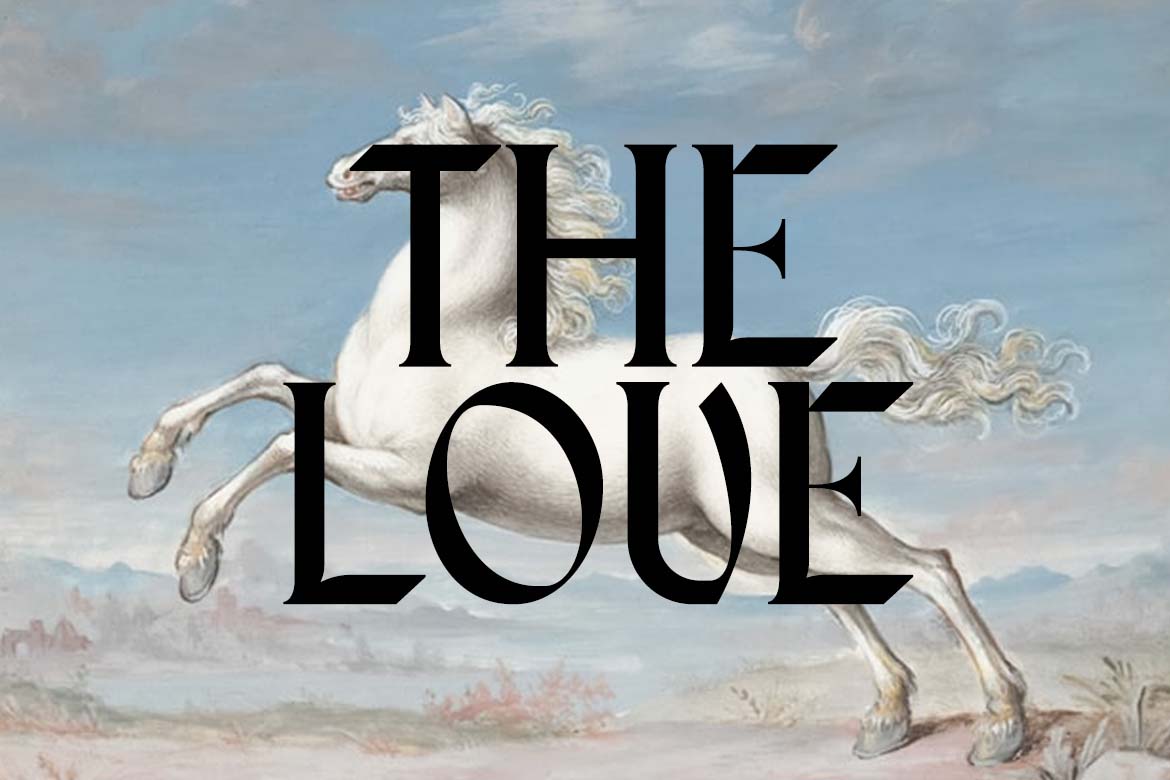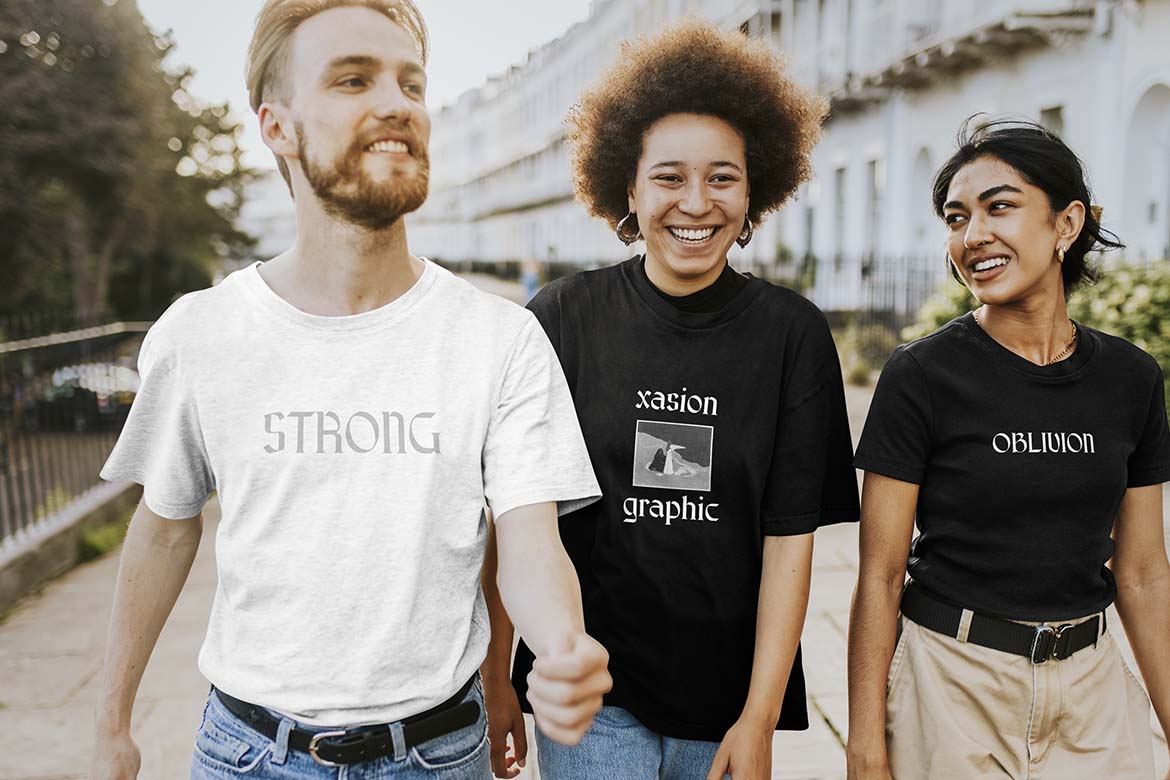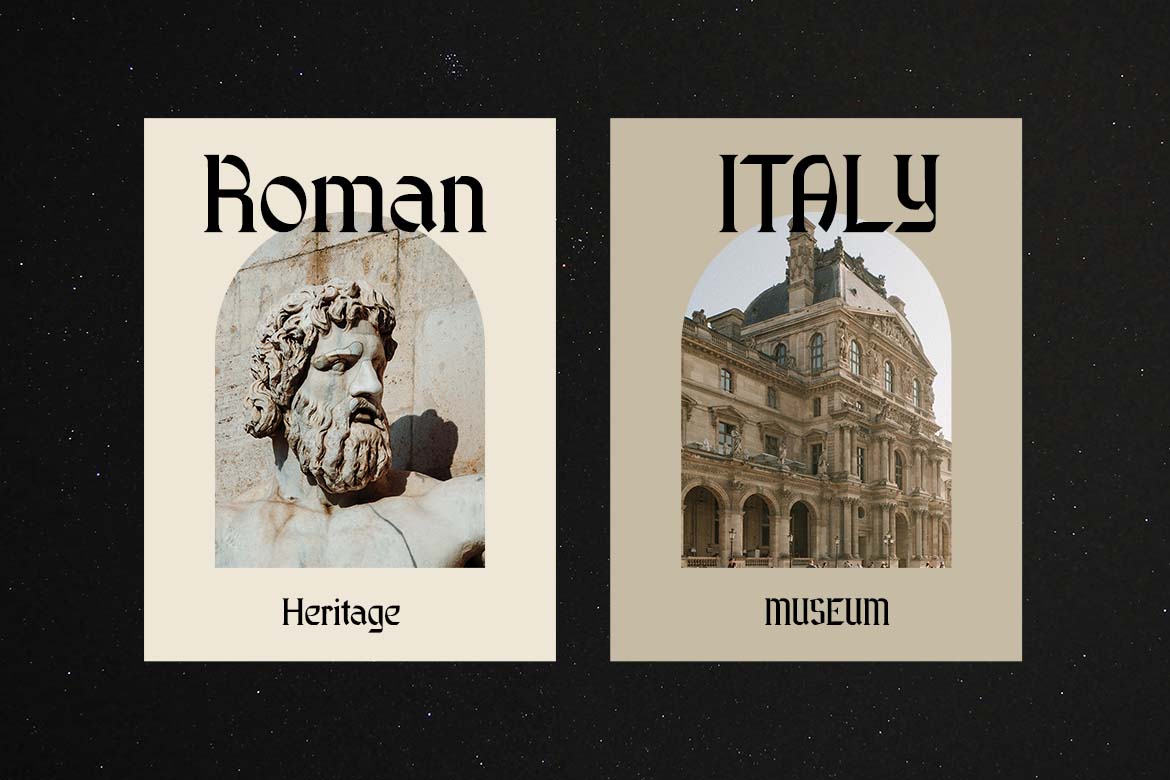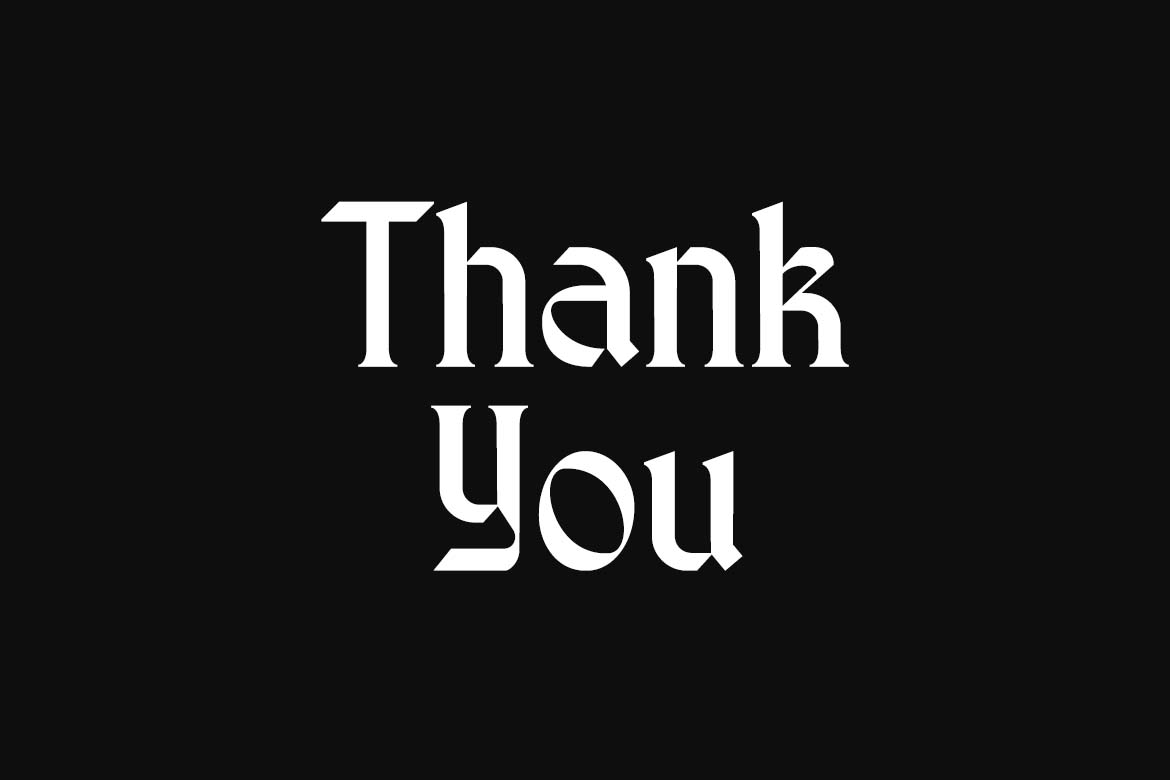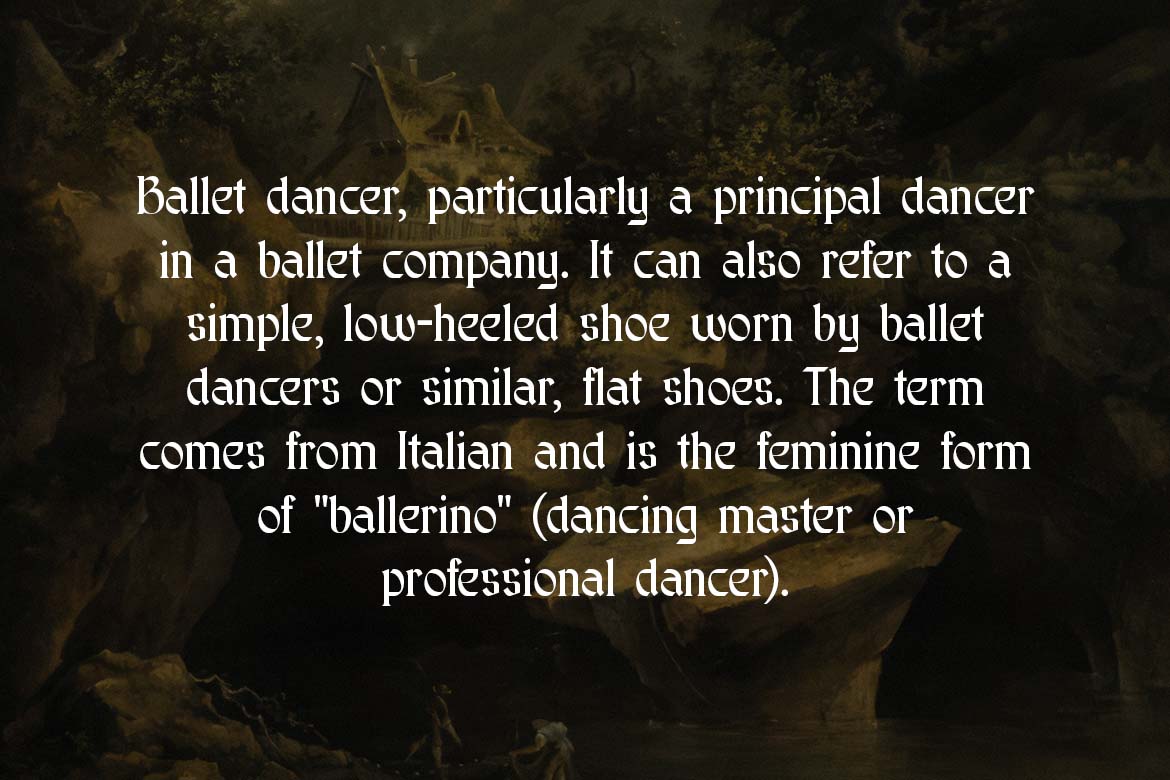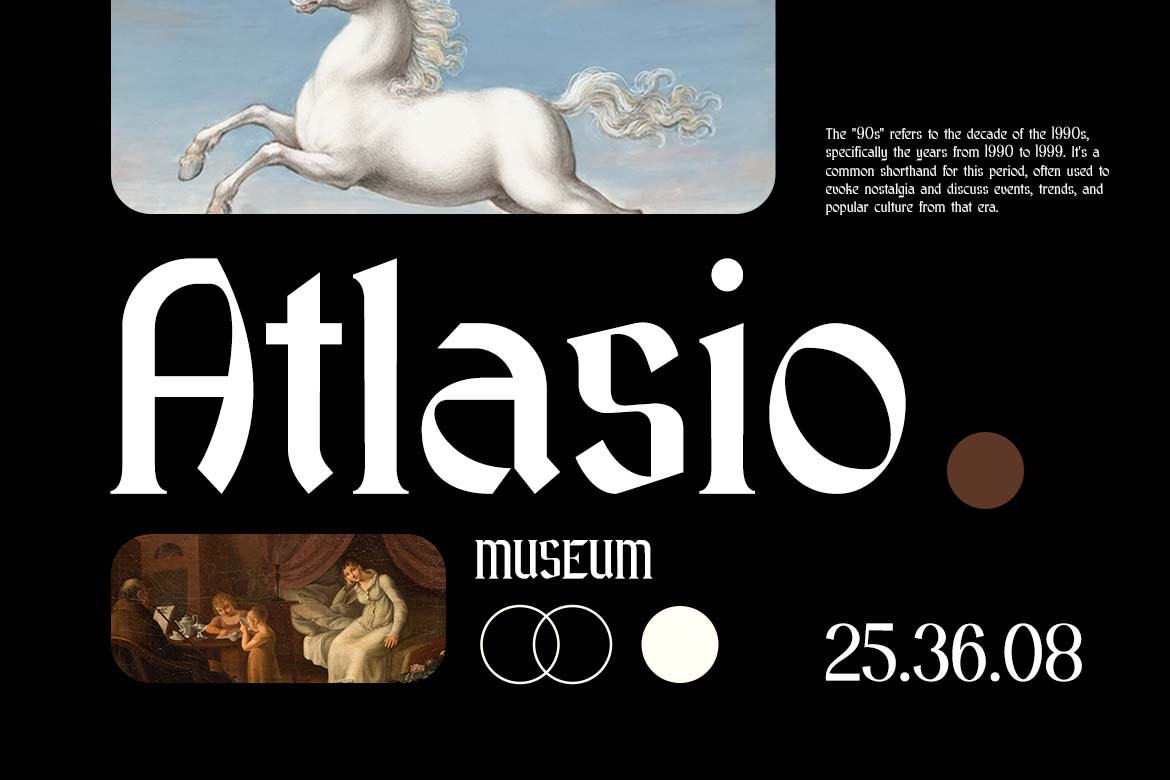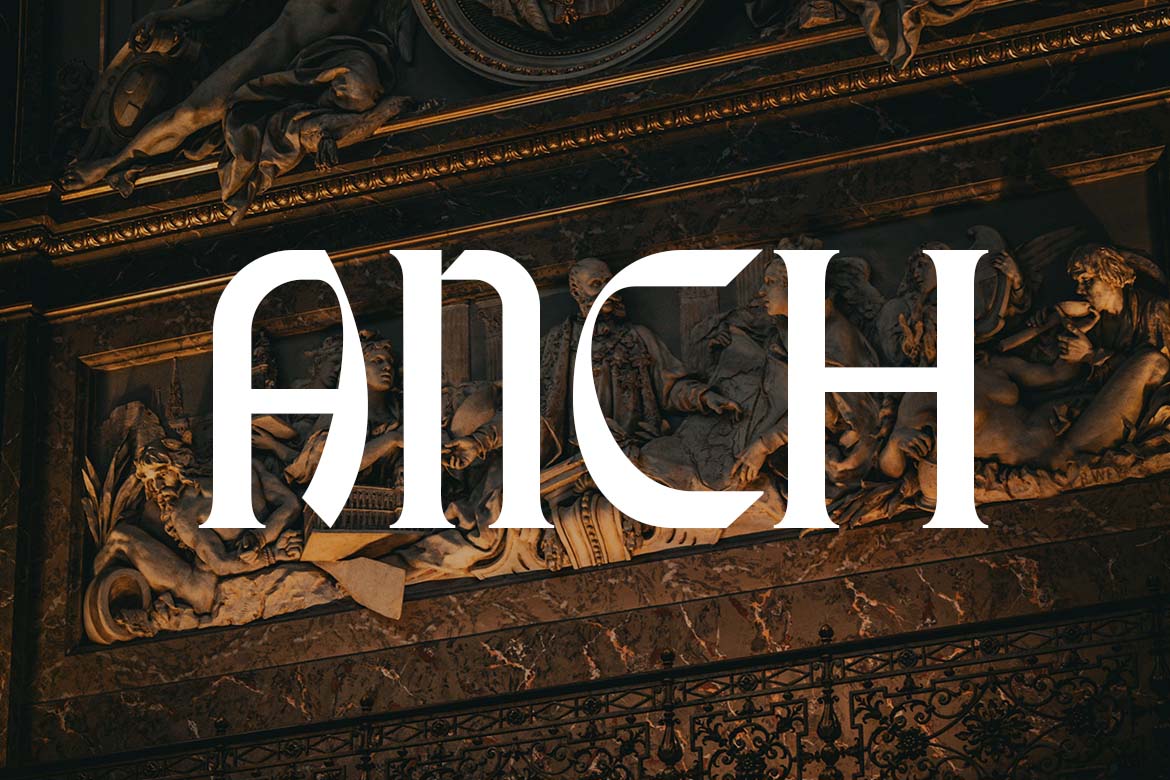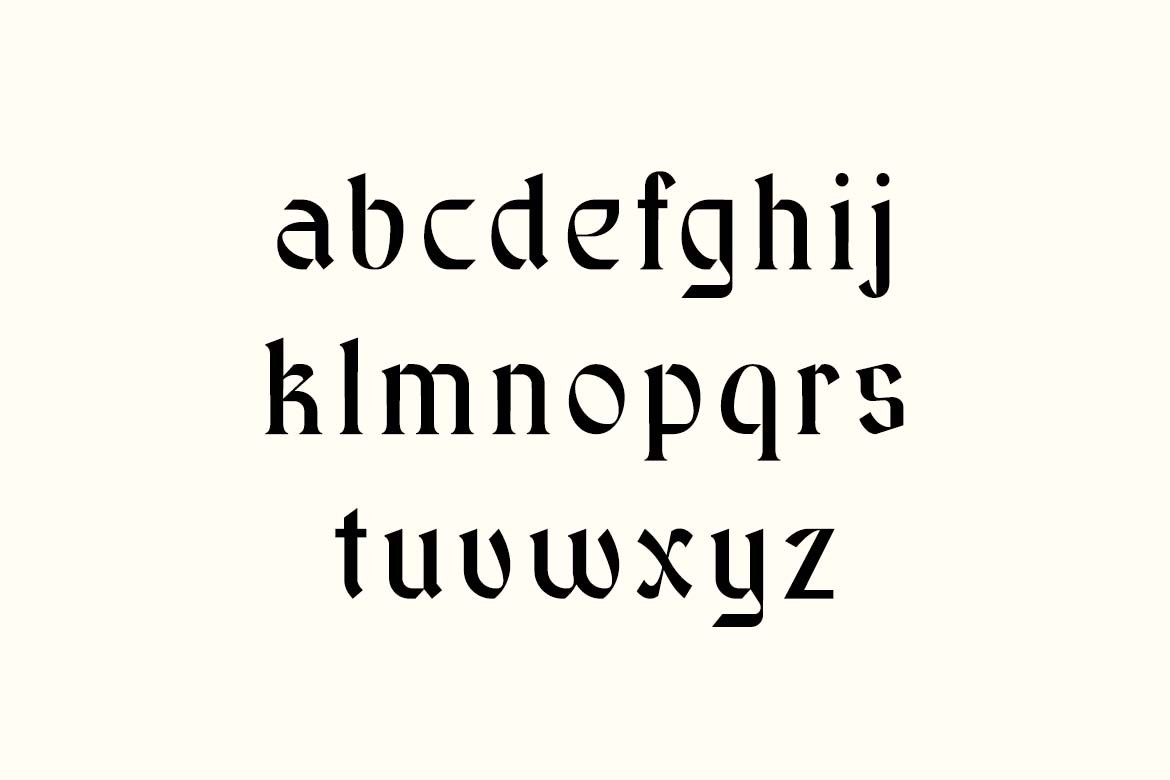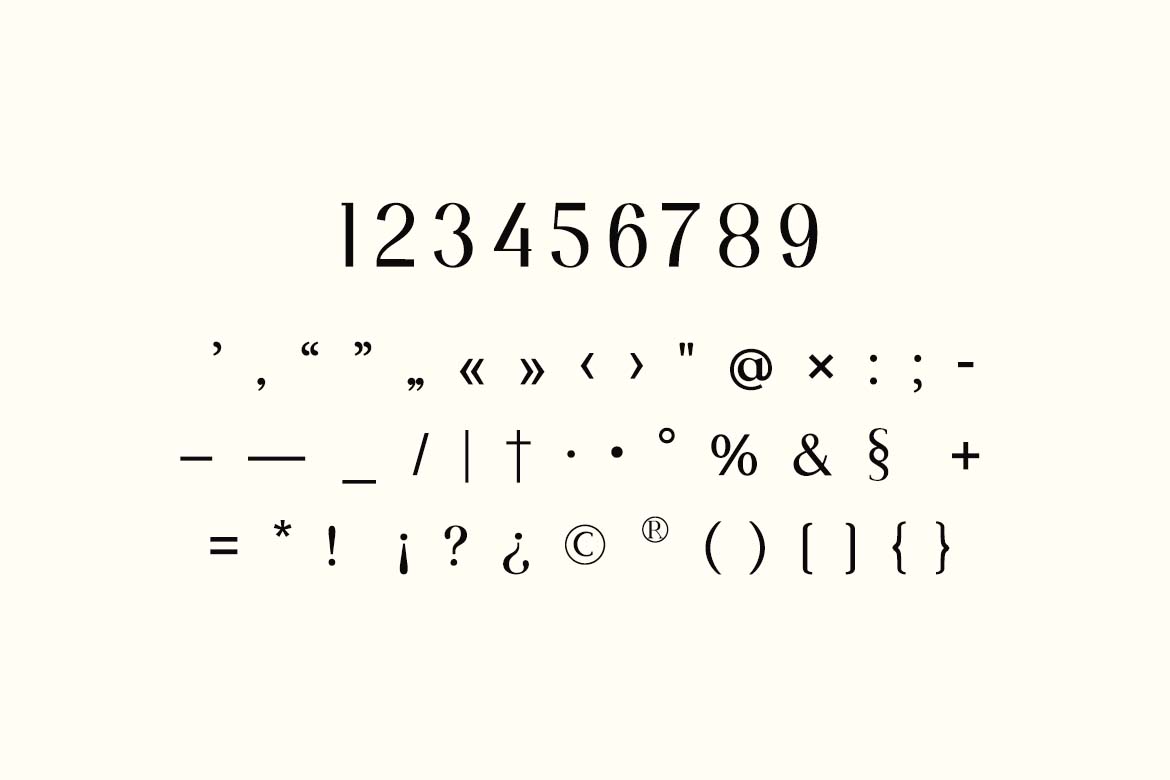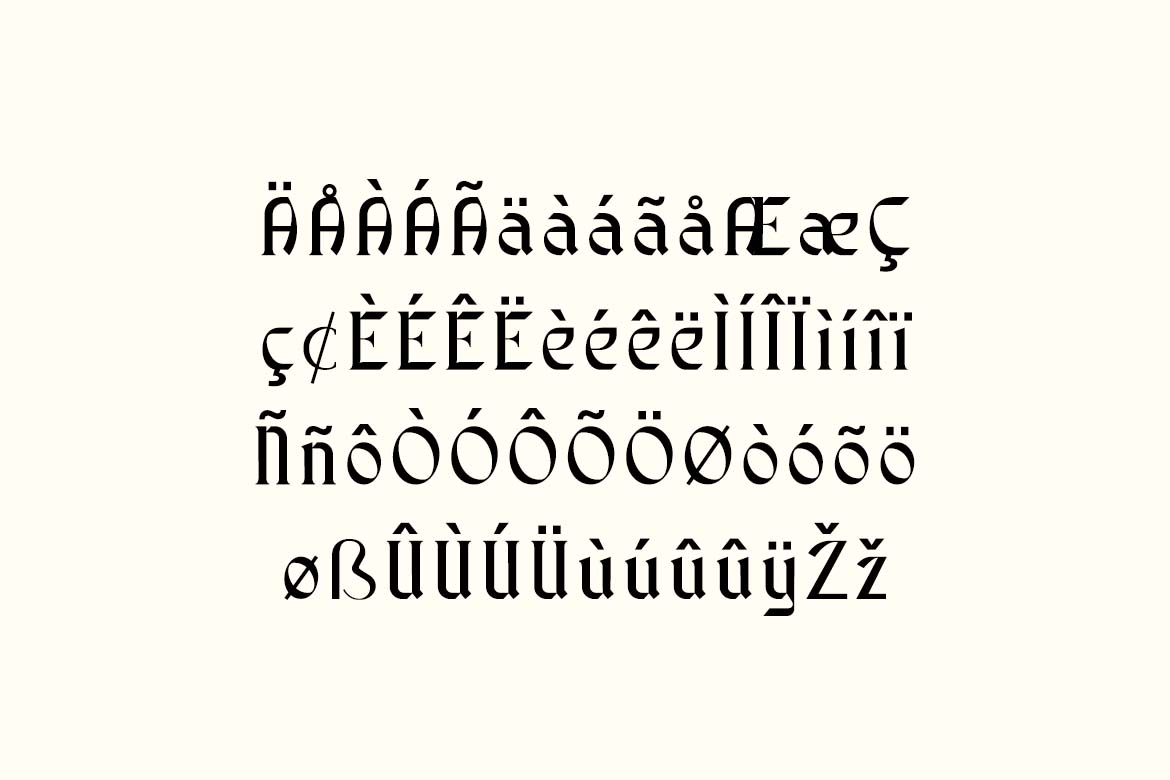
Grand Atlas Elegant Serif Font
Grand Atlas Elegant Serif Font. The modern display font feels beautiful classy, elegant, and stylish. This font is ideally suited for a wide variety of projects, such as signature, stationery, logo, wedding, typography quotes, magazine or book covers, website headers, branding, and more. Also, fashion-related branding or editorial design displays both masculine and feminine qualities.